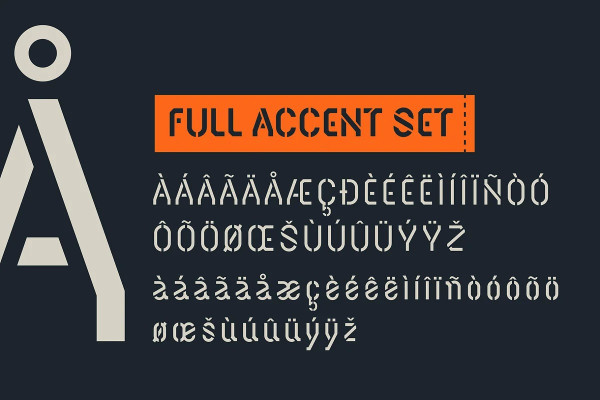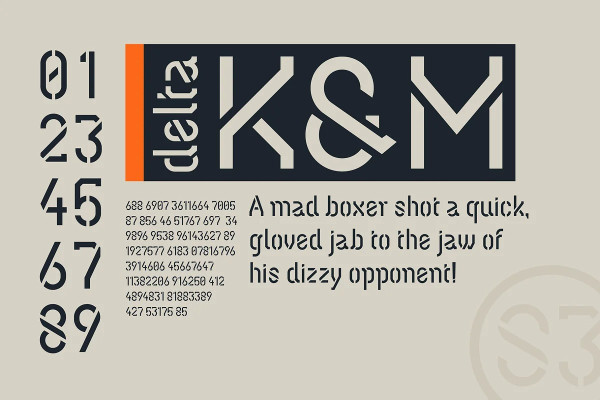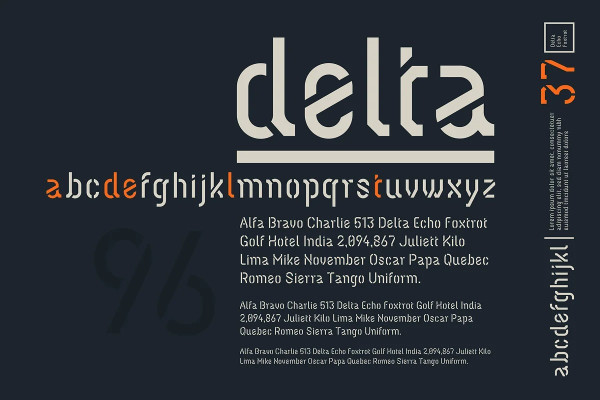
Delta Display Font
Delta Display Font, a completely unique modern twist on the standard stencil typeface. The stencil typeface comes in three weights Regular, Medium, and Bold. Perfect for sci-fi, futurist, or military inspired design projects. This typeface works great with large body copy or as a display typeface.